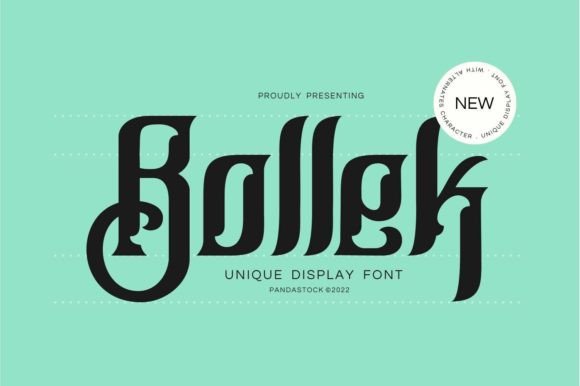
Step into the world of Bollek, a font that dances with intricate strokes and captures the essence of art. With Bollek as your design partner, you'll unveil an era of creativity like never before. This display font is the epitome of style, sending your designs to the next level of artistic expression.
Dive into the depths of Bollek's characters and discover a universe of elegance and charm. Each letter is meticulously crafted, promising to elevate your designs and ignite a spark of inspiration. Feel the weight of its strokes as they glide across the canvas, creating a visual symphony that captivates and enchants.
Unleash the power of Bollek and witness the transformation of ordinary words into captivating narratives. Whether it's an art website, a creative project, or a social media post, Bollek will breathe life into your words and make them dance with grace and poise.
Embrace the unconventional beauty of Bollek and let your artistic vision shine. Challenge the boundaries of creativity and watch as your designs blossom into masterpieces. With Bollek by your side, you'll unlock a world of possibilities and redefine the meaning of artistic expression.